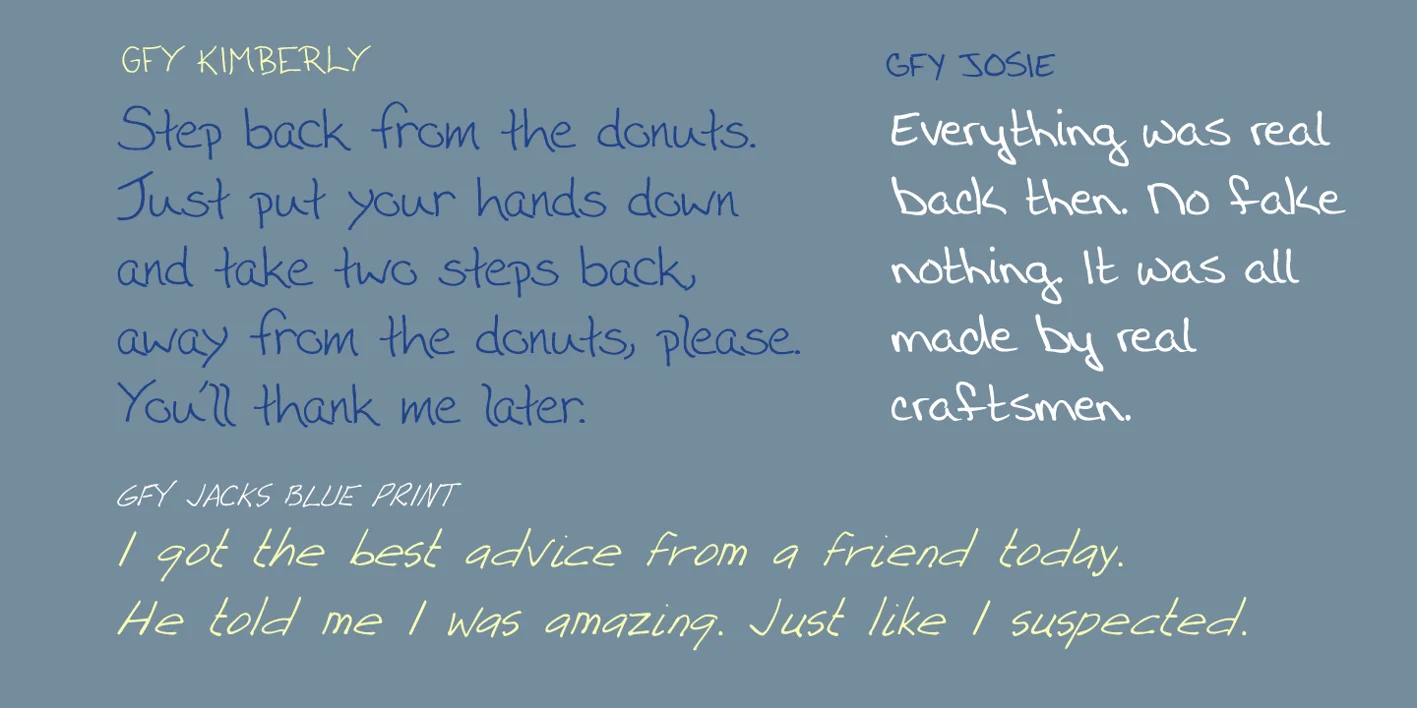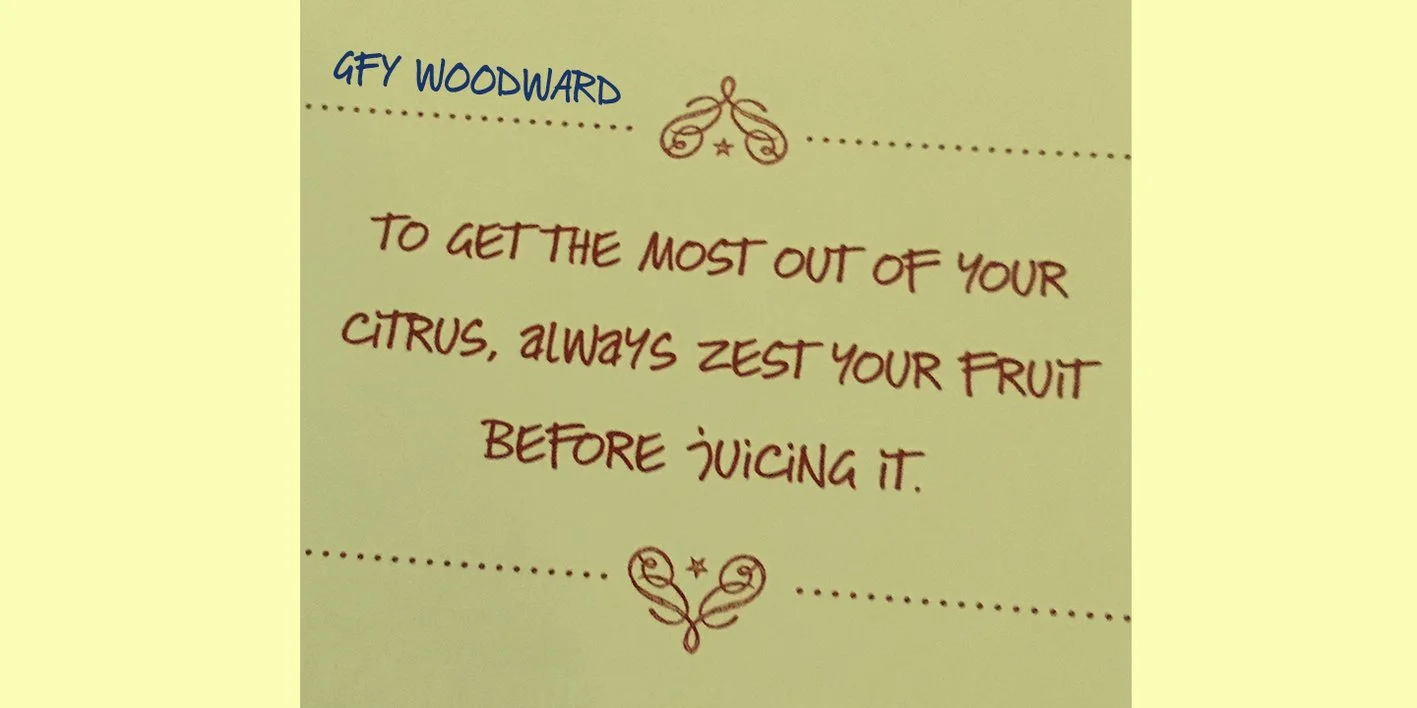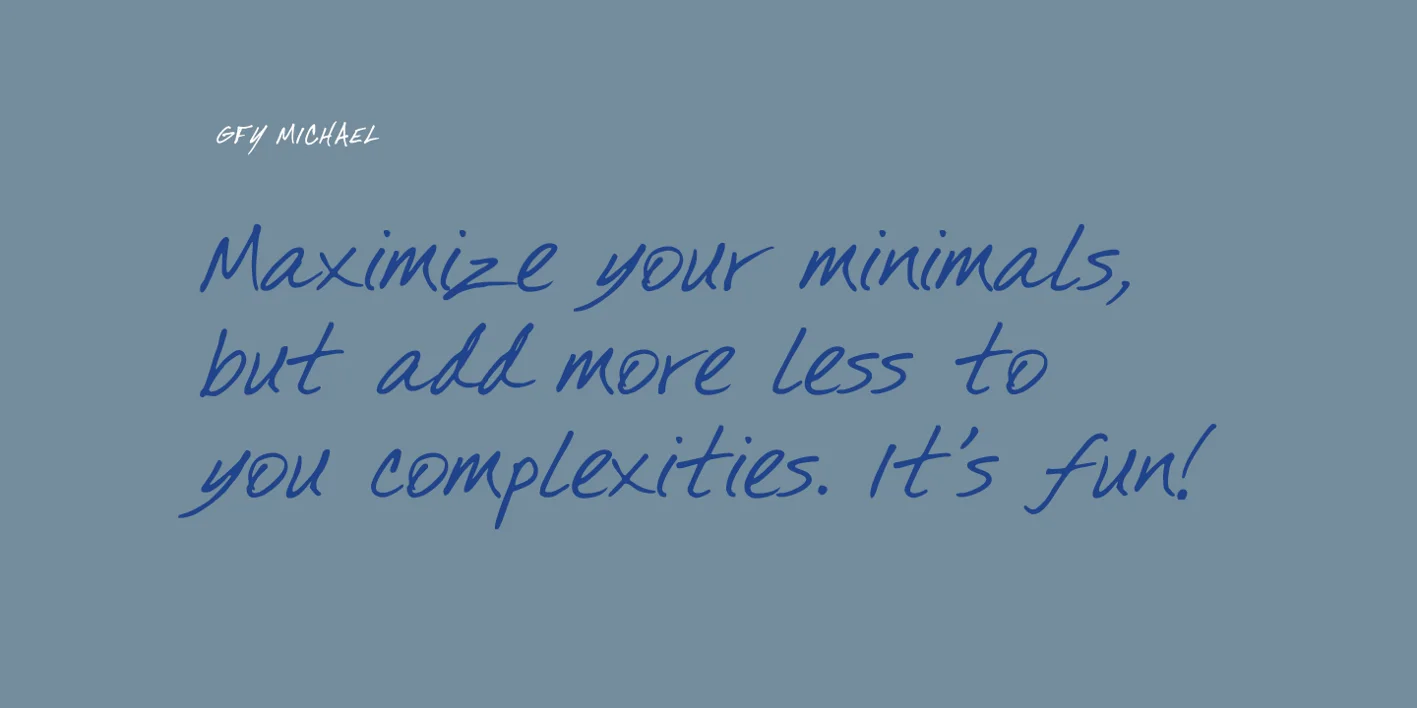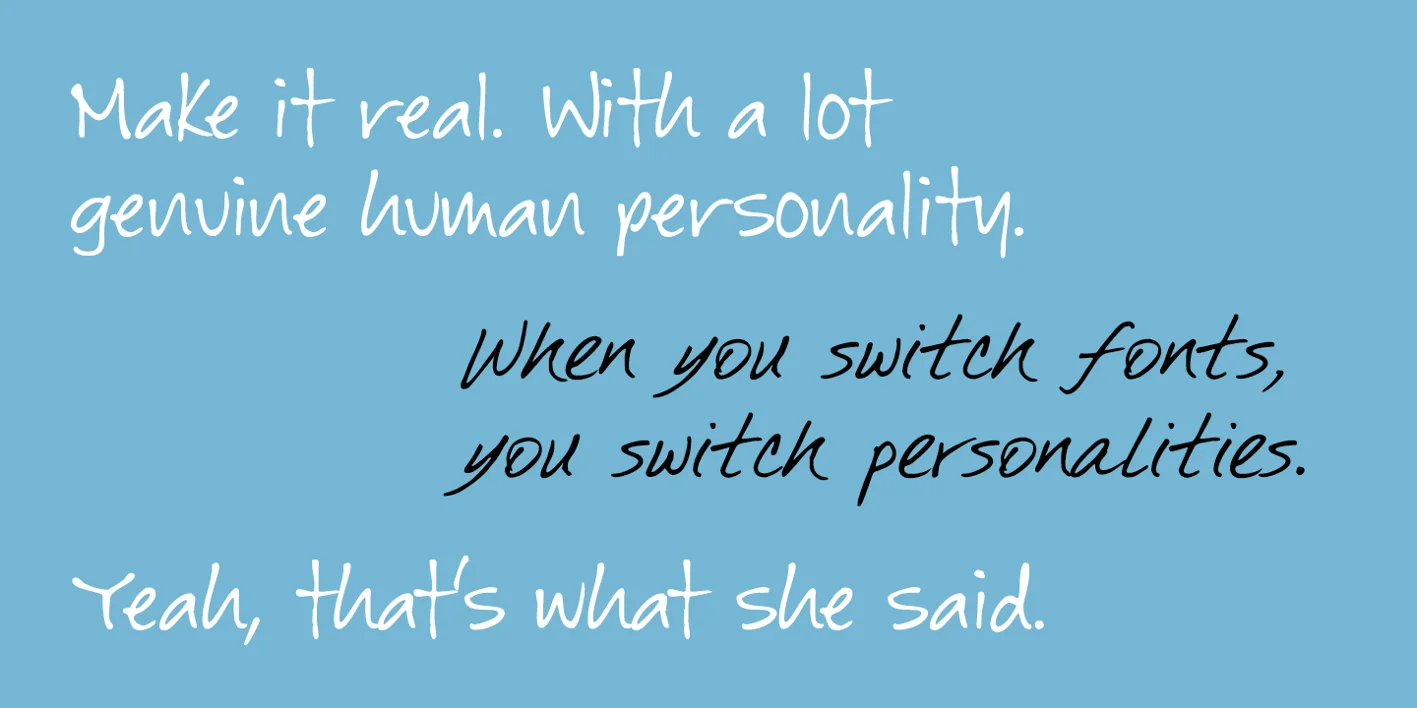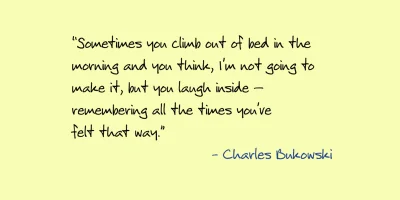
GFY Handwriting Fontpak
When a design brief calls for both refined proportions and careful stroke modulation and immediate visual impact, type choices matter — GFY Handwriting Fontpak answers that brief. The typeface brings a warm, personal sensibility to a broad range of creative disciplines, with optical balance across all weights that holds up whether the work is print-first or screen-first.
In practice, GFY Handwriting Fontpak proves particularly effective for editorial layouts, teacher resources, web design, personal stationery, advertising campaigns. Designers reaching for it find that the type decisions feel resolved rather than laboured — a useful quality when client timelines are tight.
The pen angle is consistent throughout, suggesting a single author rather than a composite of assembled letterforms. Slight irregularities in stroke width at entry and exit points reproduce the acceleration and deceleration of a real writing instrument.
The range of applications extends to keepsake albums, children's books, social media graphics, environmental graphics. That breadth is deliberate: the proportions and spacing were stress-tested across a wide range of mock briefs before the typeface was finalised.
Independent studios handling packaging and editorial work find GFY Handwriting Fontpak a reliable choice for projects that demand both personality and restraint. The design avoids the self-conscious quirkiness that dates quickly, settling instead for considered distinctiveness that holds up over time.